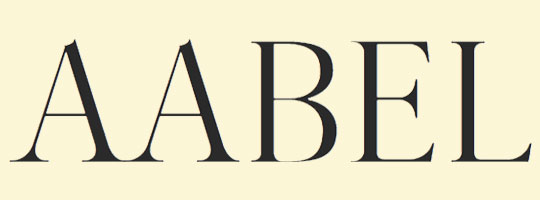
Designing a logo can cause you a lot of trouble, especially if you want it to look well-balanced and comprehensive. One of the most significant elements that almost every logo has is the typography that expresses some accurate information about the company the clients should be aware of. Therefore, typography deserves lots of attention while thinking about the future logo.
Undeniably, as a brand’s visual identity having a well-designed logo is the foremost requirement for every business. It consists of colors, shapes, fonts, and many other design elements to make it alluring. Proper use of these elements gives your brand a creative and unique identity which makes you outshine the competitors.
Among these many design elements, one thing that designers are always worried about is selecting the best logo design fonts for the business. There are thousands of typefaces available on the internet, and among those fonts which give an appealing look, it is hard to decide.
What affiliations will they bring to the abstract style? What speculations will they make about your image character subject to it? To address these solicitations and that is only a trace of something bigger, we’ve amassed these tips and rules to assist you with picking a Custom logo content style that is clearly for you. Investigate to discover the typefaces that work best for your image.
Being the most significant factor of the whole custom logo design, a single mistake in selecting it can break your design. So, you must identify one or two best fonts that look perfect in your logo design and hold the professionalism of the brand. So, let’s discuss some of the best logo design fonts that you can use in your logo and make it attractive.
1. Aabel
Aabel comes under the category of serif typefaces. This modern font looks aesthetic in your logo design and is specifically suitable for luxury and fashion brands.
Actually, it comes with the three weights: regular, bold, and light. All these versions look beautiful in the uppercase and lowercase letters. Not only in the business logo design, this font suits posters, headings, advertisements, packaging design, books, and many more places. Any font combination with this looks great in your logo, therefore, it won’t be a wrong choice to use this.
2. Garamond
Garamond is one of the oldest serif typeface designs coming from the 16th century. Take the best advantage of this font by adding in your custom logo design, it gives an elegant look. Showcase your brand’s personality and professionalism with this typeface by using it in a logo.
It was originally inspired by Claude Garamond’s punch cuts; currently, you can get many variations of this particular font. The most popular is Adobe Garamond which was designed by Robert Slimbach. Due to its readability, it’s used in the magazine and newspapers as well.
3. Rockwell
Another best logo font which makes your design even more eye-catching. It comes under the slab serif font family. Although it was designed in 1934, it comes in the limelight currently and can be used in the business logo design.
It was used in the informational signage at Expo 86, Docklands Light Railway used the bold weight of the Rockwell in the 1980s. Due to its mono-weighted stroke, it’s primarily used in the small size.
4. Frutiger
A font with better legibility even in the small size. So, you don’t need to worry if your logo design is used in any size of the screen or place. It was designed by Adrin Frutiger, a designer of the Univers font. As the designer is from the Swiss, it has been used in the Swiss passport since 1985.
In planning the typeface’s ancestors Concorde and Roissy, Frutiger’s objective had been to make a sans-serif typeface with the discernment and tidiness of Univers however the natural and relative parts of Gill Sans.
Therefore, to give your logo great readability in a small and large application this font would be the best choice.
5. Times New Roman
The widely used font across the world, and hardly find anyone who is unaware of this typeface. Times New Roman is one of the most popular fonts from the serif typefaces. It was first commissioned by the British newspaper. The popularity of this font has increased rapidly from designing it to becoming famous for magazine, newspaper, and book printing.
Due to its clean and modern appearance makes your logo even more elegant, the legibility of this font encourages designers to use it again and again. Moreover, the bold and italic version of it was inspired by the Didot family. With this many benefits of this font, it is never going to be the wrong choice to opt for Times New Roman in the logo, it surely captures the attention of the people.
6. Futura
It’s a geometric sans-serif typeface which means it’s based on geometric shapes such as circles, triangles, squares, and many more. It was designed by Paul Ranner in 1927 and then it became a very popular typeface for designing a logo. Famous companies namely FedEx and Swissair have already used this in their business logo design.
The selection of the proper font for your brand’s logo can’t be overlooked. It has remarkable significance to make your design alluring. Now we have a wide variety of fonts, so you must identify the proper font that suits your design. The above-mentioned fonts are frequently used by the designers and each has a different application where it fits, so based on the need you can opt for. To design an eye-catching logo for your company you must understand the importance of color and fonts. The above-mentioned helps you to know how you can utilize colors and fonts to craft an engaging logo.